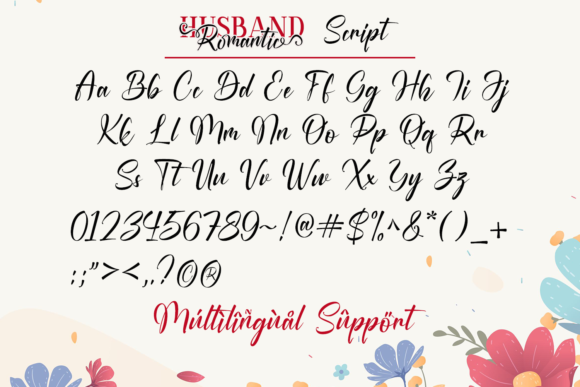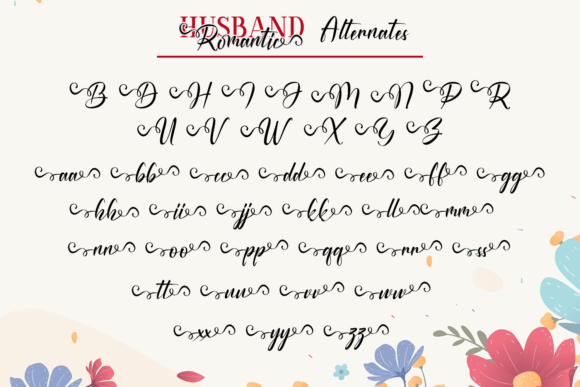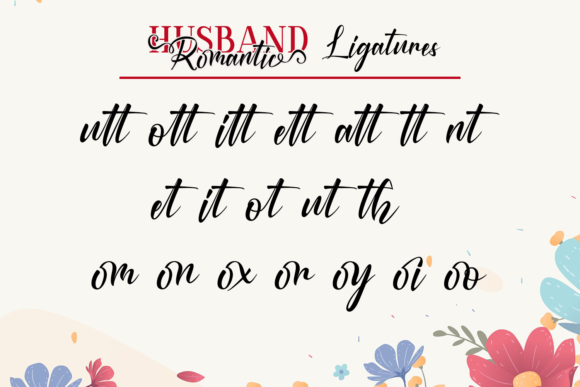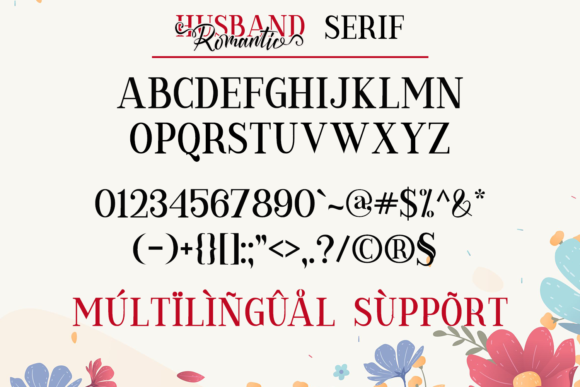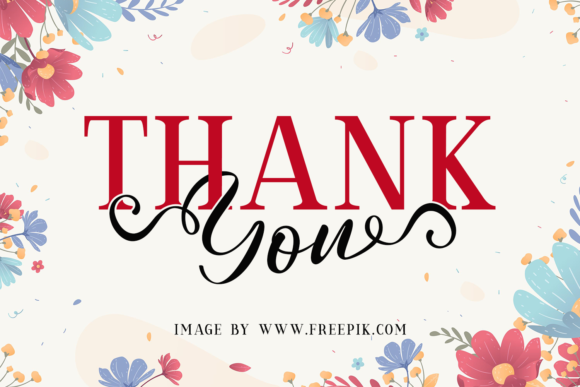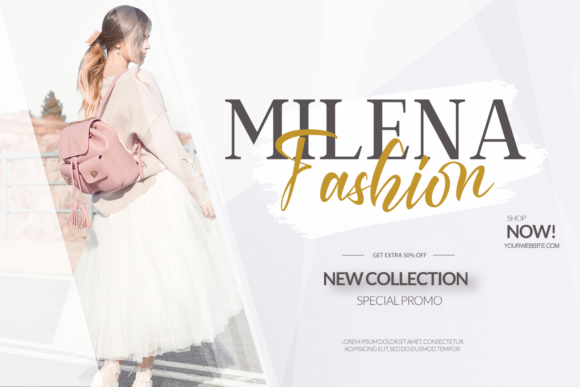
About Husband Romantic Font
Husband Romantic is a lovely and elegant duo font that combines a script and serif style. With its versatile nature, this font can be effortlessly matched to a wide range of projects, allowing your creative ideas to truly stand out. Additionally, Husband Romantic is PUA encoded, granting you easy access to all the glyphs and swashes for enhanced customization.
The beauty of Husband Romantic lies in its elegant and harmonious combination of the script and serif styles. The script font brings a touch of sophistication and fluidity, while the serif font adds a classic and timeless appeal. Together, they create a perfect balance that elevates the overall aesthetic of your designs.
The versatility of Husband Romantic makes it a versatile choice for various projects. Whether you’re working on branding materials, invitations, logos, or any other creative endeavor, this font duo adapts seamlessly. It adds a touch of elegance and refinement, making your designs visually appealing and captivating.
The PUA encoding of Husband Romantic allows for easy access to all the glyphs and swashes. This feature provides you with a wide range of design options and customization possibilities. You can effortlessly add stylish swashes, decorative elements, and unique variations to make your designs truly unique and personalized.
By incorporating Husband Romantic into your creative ideas, you unlock its potential to enhance and elevate your designs. The font duo’s lovely and elegant style adds a touch of sophistication and charm, making your projects stand out from the crowd. Let Husband Romantic be the perfect companion for your creative journey, and notice how it brings a sense of refinement and uniqueness to your designs.
In summary, Husband Romantic is a lovely and elegant duo font, consisting of a script and serif style. Its versatility allows it to be matched with a wide range of projects, making them truly stand out. With PUA encoding, you have access to all the glyphs and swashes for enhanced customization. Embrace the beauty and versatility of Husband Romantic, and let it bring an elegant and refined touch to your creative ideas, creating visually captivating and memorable designs.